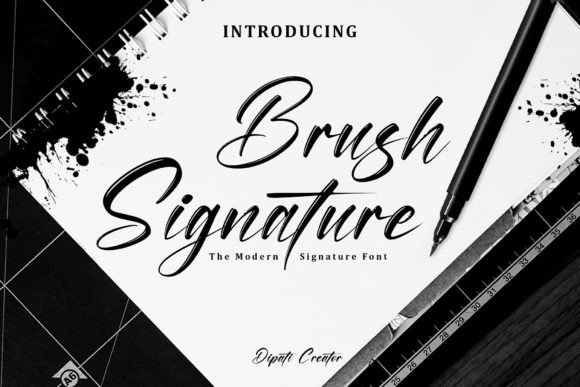
Journey through the world of elegance and sophistication with Brush Signature Font, a captivating script font family designed to allure and inspire. Embark on a creative odyssey where your words dance with grace and charm, leaving an unforgettable impression on hearts and minds.
Indulge in the beauty of Brush Signature Font, a creation of Dipati Creator, meticulously crafted to evoke emotions and make a lasting impact. Its delicate strokes and balanced design bring a touch of class and refinement to your designs, transforming them into masterpieces.
Unleash your creativity with Brush Signature Font, the perfect companion for crafting captivating t-shirts, invitations, magazines, photography, posters, and more. Its versatility knows no bounds, making it an essential tool for designers seeking to elevate their work and leave a lasting legacy.
Brush Signature Font is more than just a font; it's an experience. Its PUA encoding unlocks a treasure trove of amazing glyphs and ligatures, inviting you to explore a world of endless possibilities. Create designs that resonate with your audience, leaving them mesmerized by the sheer beauty and charm of your creations.
With Brush Signature Font, your designs will transcend the ordinary and embark on a journey of enchantment. Each letter dances with grace and elegance, captivating your audience and leaving them spellbound by the sheer beauty of your words.